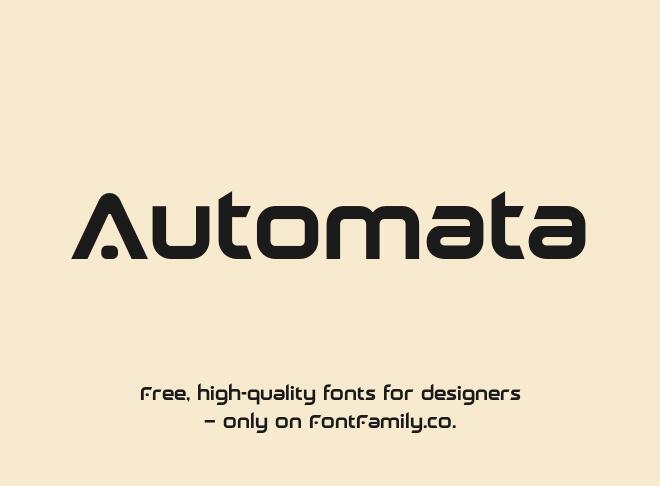
Automata Font
Automata Font is a modern, geometric typeface designed by Dynamo Type Foundry. Its futuristic design, inspired by robotic and mechanical aesthetics, brings a unique, cutting-edge vibe to any project. The font features a minimalistic design with clean, sharp lines, making it an excellent choice for display use in tech, science, and engineering-themed designs. Its modern style sets it apart from traditional typefaces, yet it retains a high level of readability even at smaller sizes. Compared to other fonts, Automata Font stands out for its distinctive, machine-like character set that's both versatile and visually appealing. It's a fantastic choice for designers looking to add a touch of the future to their work.